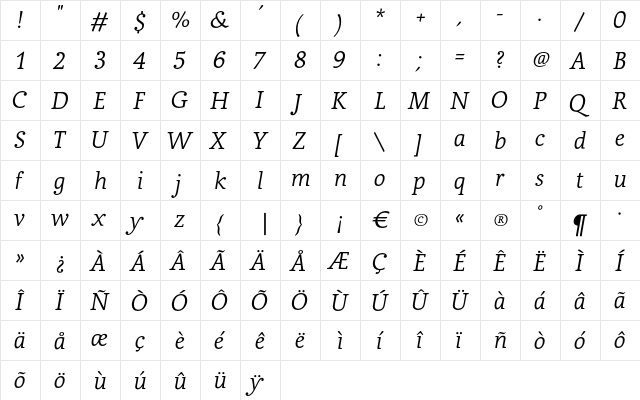
CarrefourSerif MediumItalic Font Preview
CarrefourSerif MediumItalic
CarrefourSerif MediumItalic Font Details
| Style | MediumItalic |
Design Context for CarrefourSerif Typeface
CarrefourSerif brings classic typographic sensibility to the table — its serifs and measured letterforms reflect centuries of print heritage. The slanted form adds forward momentum and visual energy.